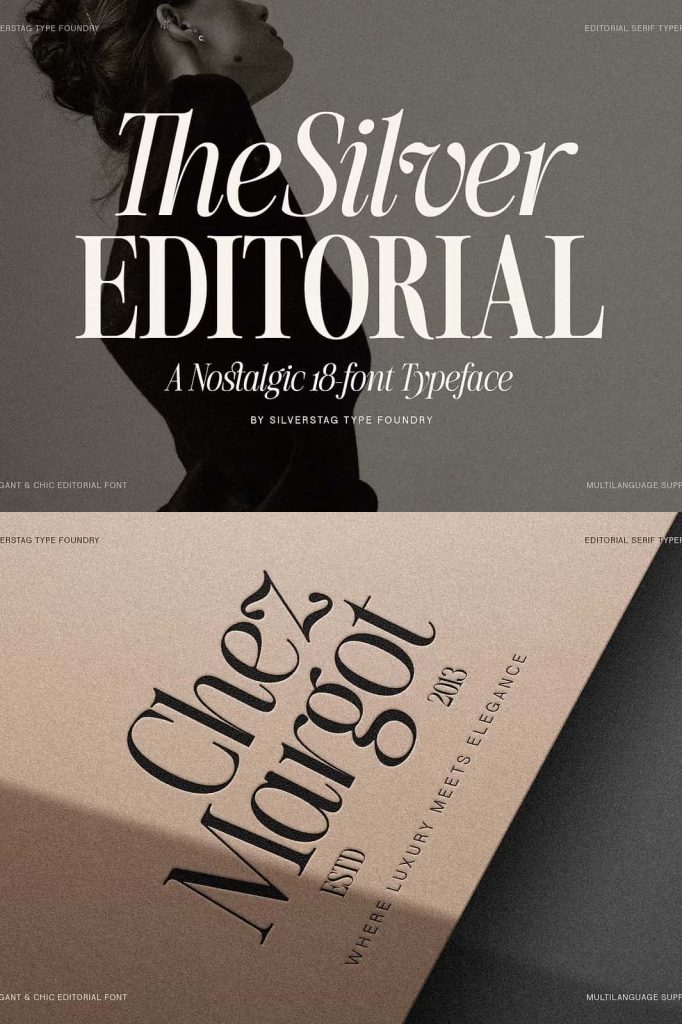
The Silver Editorial – 18 Fonts Pack
The Silver Editorial: A Refined Nostalgic Serif Typeface Family
The Silver Editorial is a beautifully reimagined serif typeface family that blends nostalgic charm with modern precision. Originally celebrated as one of the most popular serif designs, this expanded and fully redrawn edition transforms the font into a complete and versatile typographic system. With a total of 18 fonts, including nine weights and matching italics, The Silver Editorial is designed to deliver both visual beauty and functional performance across a wide range of creative and professional projects.
A Nostalgic Typeface Rebuilt for Modern Design
The Silver Editorial draws inspiration from classic editorial typography, where elegance, readability, and personality work together seamlessly. This nostalgic influence gives the typeface its timeless character, evoking the refined atmosphere of traditional print publications while remaining relevant in contemporary design contexts.
In this latest edition, every letterform has been carefully redrawn to improve balance, spacing, and consistency. The result is a serif typeface that preserves its original charm while offering improved clarity and performance for modern workflows.
An Expanded 18-Font Typographic System
This refined version of The Silver Editorial now includes a complete set of 18 fonts, providing designers with exceptional flexibility. The family features nine carefully calibrated weights, each paired with a corresponding italic style. This extensive range allows designers to build complex typographic hierarchies and expressive layouts without leaving the same font family.
From delicate, lightweight text to bold, commanding headlines, The Silver Editorial supports a wide spectrum of visual tones while maintaining a cohesive identity.
Elegant Italics Designed for Real Use
The italic styles in The Silver Editorial are not simple slanted versions of the roman fonts. They are thoughtfully designed to complement the upright styles while adding movement and emphasis. These italics enhance readability and bring a graceful rhythm to editorial layouts, quotes, and highlighted text.
Designers can rely on the italics to add nuance and contrast while preserving consistency throughout the design system.
Designed for Beauty and Built for Function
Refined Letterforms with Purpose
The Silver Editorial balances aesthetic elegance with practical usability. Each letterform is designed to look beautiful while performing reliably across different sizes and formats. The refined serifs, smooth curves, and well-considered proportions ensure that the font remains readable and visually pleasing in both display and text applications.
This thoughtful construction makes the typeface suitable for long-form reading as well as impactful headlines.
Consistent Spacing and Structure
The upgraded spacing and kerning improve overall readability and flow. Text set in The Silver Editorial feels comfortable and natural, reducing visual fatigue in extended reading contexts. This attention to detail supports professional publishing standards and modern design expectations.
Perfect for Editorial and Publishing Design
As its name suggests, The Silver Editorial excels in editorial and publishing environments. It performs beautifully in magazines, newspapers, books, and digital publications. Designers can use it for headlines, subheadings, pull quotes, captions, and body text, creating cohesive and engaging layouts.
The nostalgic tone adds depth and personality to editorial content while the modern refinements ensure clarity and usability.
Strong Choice for Branding and Visual Identity
The Silver Editorial also serves as a powerful tool for branding and visual identity. Its refined serif style communicates trust, sophistication, and authority, making it ideal for luxury brands, cultural institutions, publishers, and creative businesses.
Logos and brand assets created with The Silver Editorial feel established and confident, while the wide range of weights allows for flexible brand expression across different platforms.
Versatile Across Print and Digital Media
This typeface family adapts seamlessly to both print and digital environments. In print, it delivers crisp, elegant typography with a classic feel. On screens, the refined letterforms and improved spacing ensure readability and visual consistency across devices.
Designers can confidently apply The Silver Editorial to websites, marketing materials, social media graphics, and promotional content.
A Typeface Family That Encourages Thoughtful Typography
The Silver Editorial invites designers to work with intention and care. Its complete typographic system supports thoughtful hierarchy, contrast, and rhythm. By staying within one family, designers can achieve visual harmony while exploring a wide range of expressive possibilities.
This approach simplifies workflows and enhances design consistency, making The Silver Editorial a reliable choice for professional projects.
Why Choose The Silver Editorial Typeface Family
The Silver Editorial stands as a refined evolution of a beloved serif typeface. With its nostalgic roots, fully redrawn letterforms, and expanded 18-font system, it delivers both beauty and functionality. The typeface supports editorial design, branding, and modern publishing with confidence and elegance.
If you are looking for a comprehensive serif typeface family that blends classic editorial charm with contemporary performance, The Silver Editorial offers a timeless and versatile solution for professional design work.